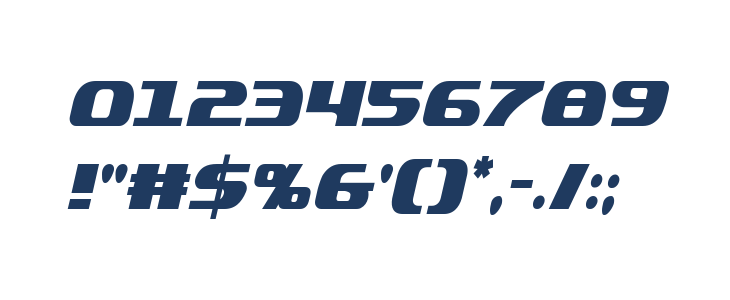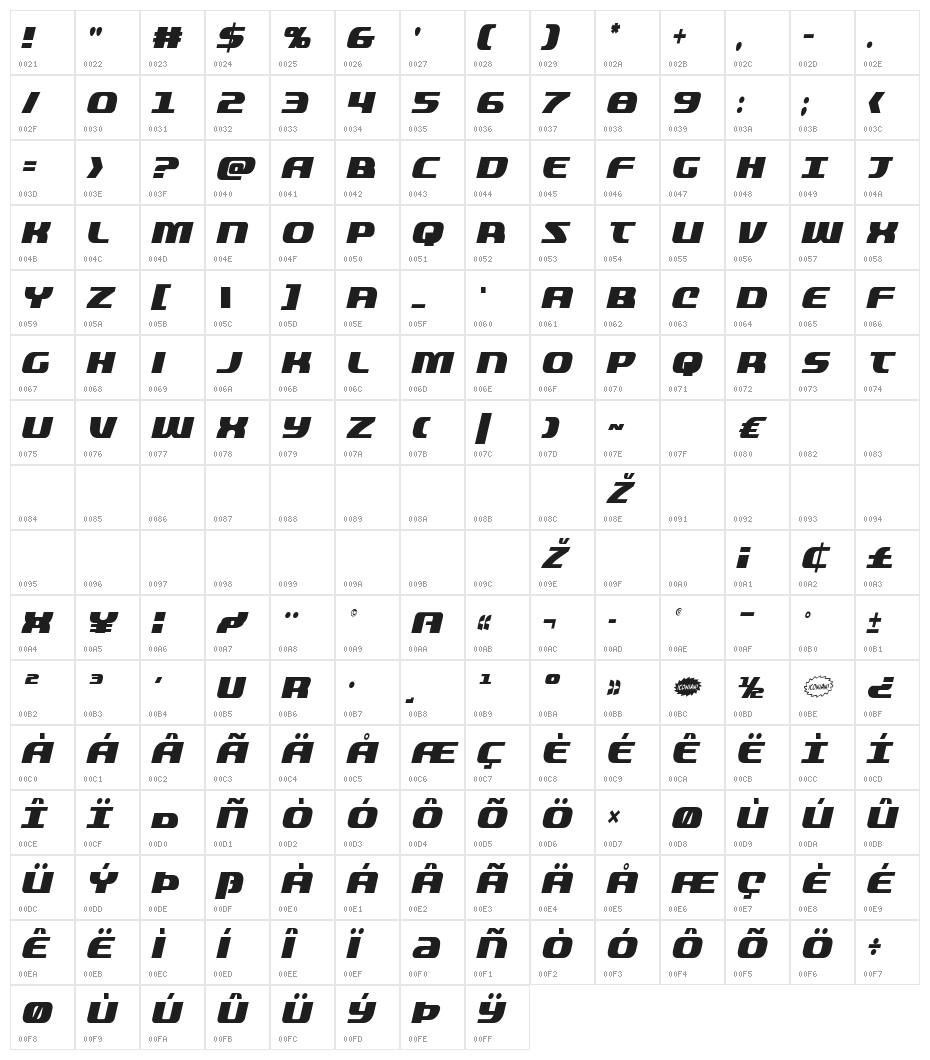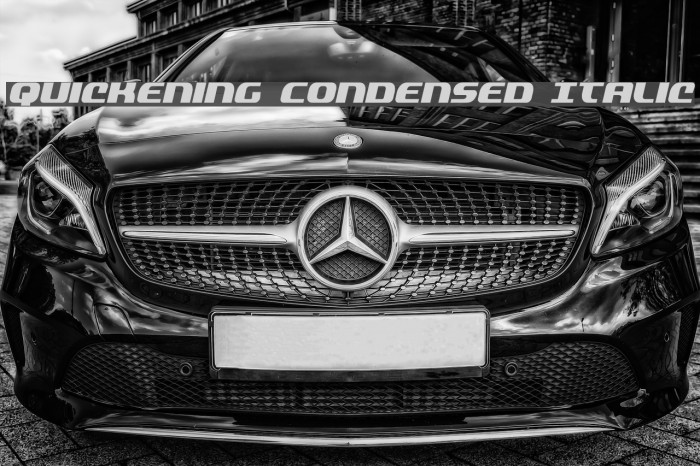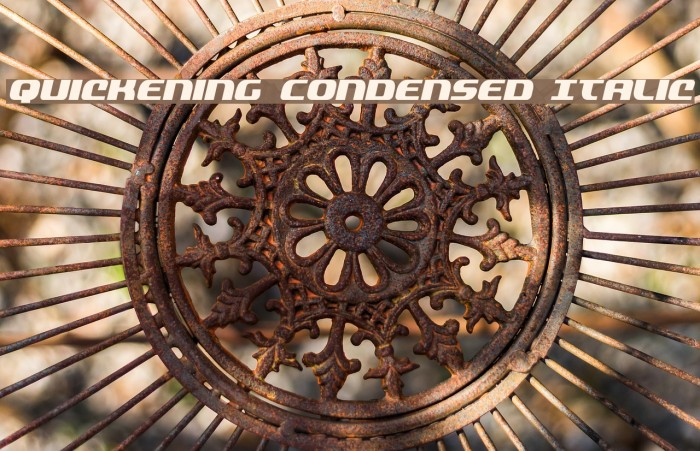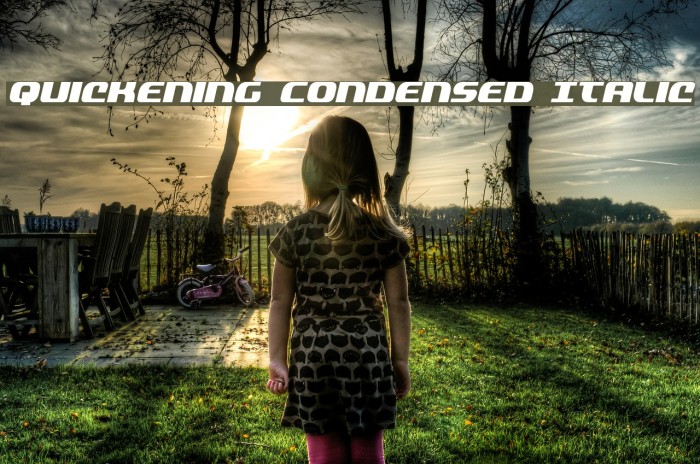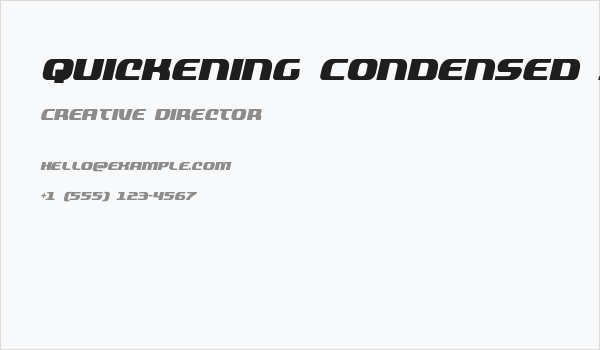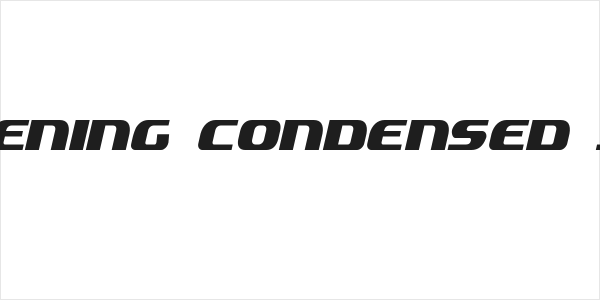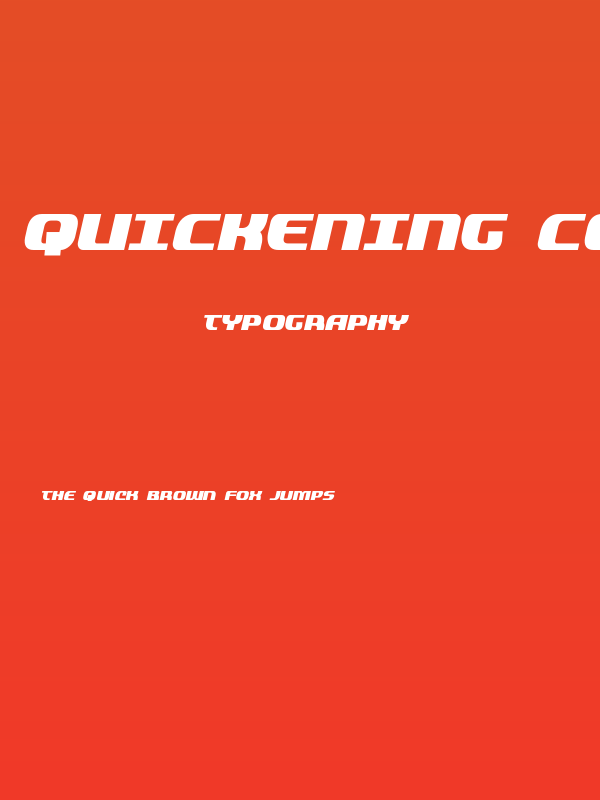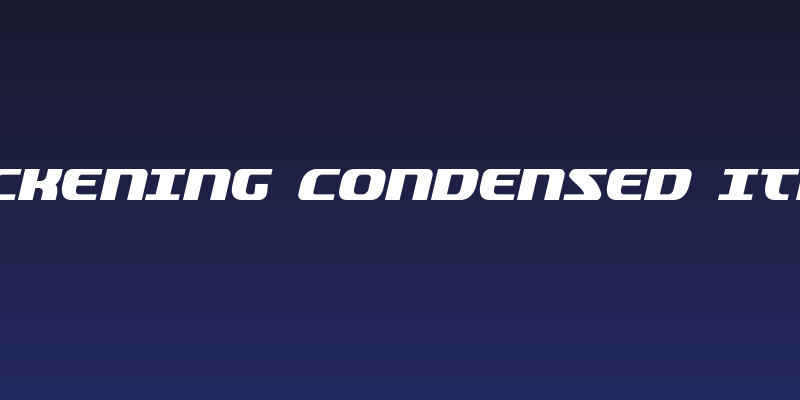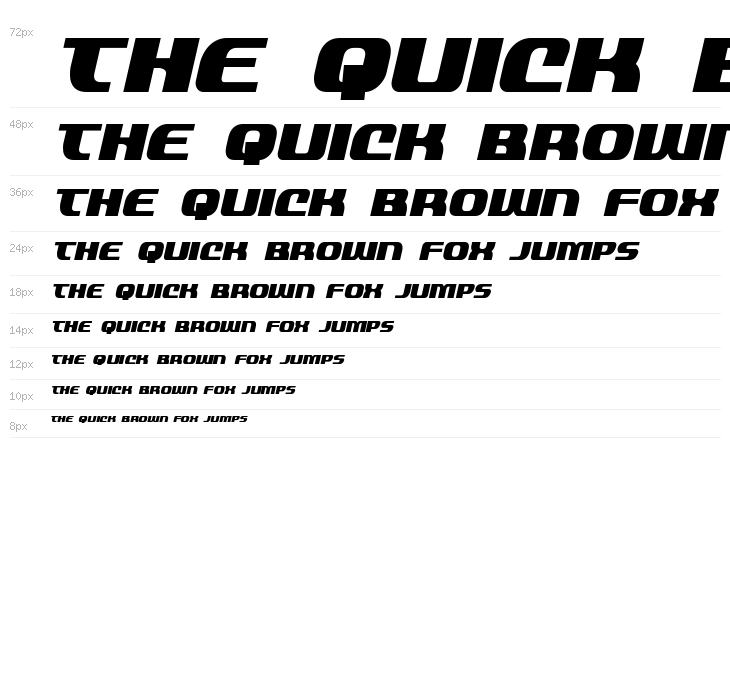
Quickening Condensed Italic Font
Quickening Condensed Italic Description
This font features a bold, italicized style with a condensed width, giving it a dynamic and modern appearance. The characters are designed with a forward-leaning slant, enhancing the sense of movement and speed. The strokes are thick and consistent, providing a strong visual impact. The uppercase and lowercase letters maintain a uniform height, contributing to a cohesive look. The numerals and special characters are crafted with the same boldness and slant, ensuring consistency across all glyphs. This font's condensed nature allows for efficient use of space, making it suitable for various design applications.